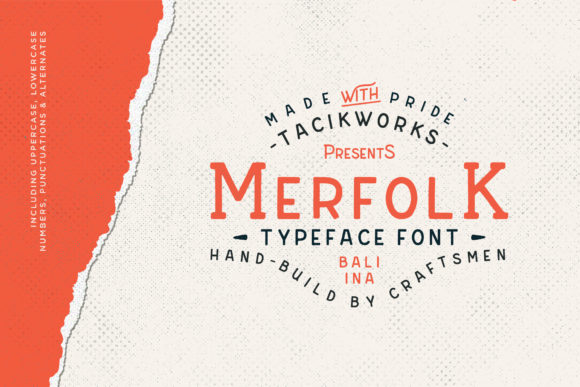
Unleash the Enchantment of Merfolk Font: Dive into a Realm of Vintage Elegance!
Journey back in time with the Merfolk font, a captivating display font that exudes vintage charm and timeless beauty. Its meticulously crafted characters, reminiscent of a bygone era, will add an aura of sophistication to your creative endeavors. Merfolk is the perfect choice for designers seeking an authentic vintage aesthetic.
With Merfolk, you'll have at your disposal a versatile font that seamlessly adapts to a myriad of projects, from enchanting wedding invitations and alluring posters to captivating social media graphics and spellbinding logos. Let Merfolk cast its magic on your designs and transport your audience to a world of vintage elegance.
Merfolk's vintage appeal shines through in its intricate details and graceful curves. Each character tells a story, evoking a sense of nostalgia and inviting viewers to embark on a journey through time. Whether you're creating a whimsical brand identity or designing a captivating marketing campaign, Merfolk will elevate your work to new heights of sophistication.